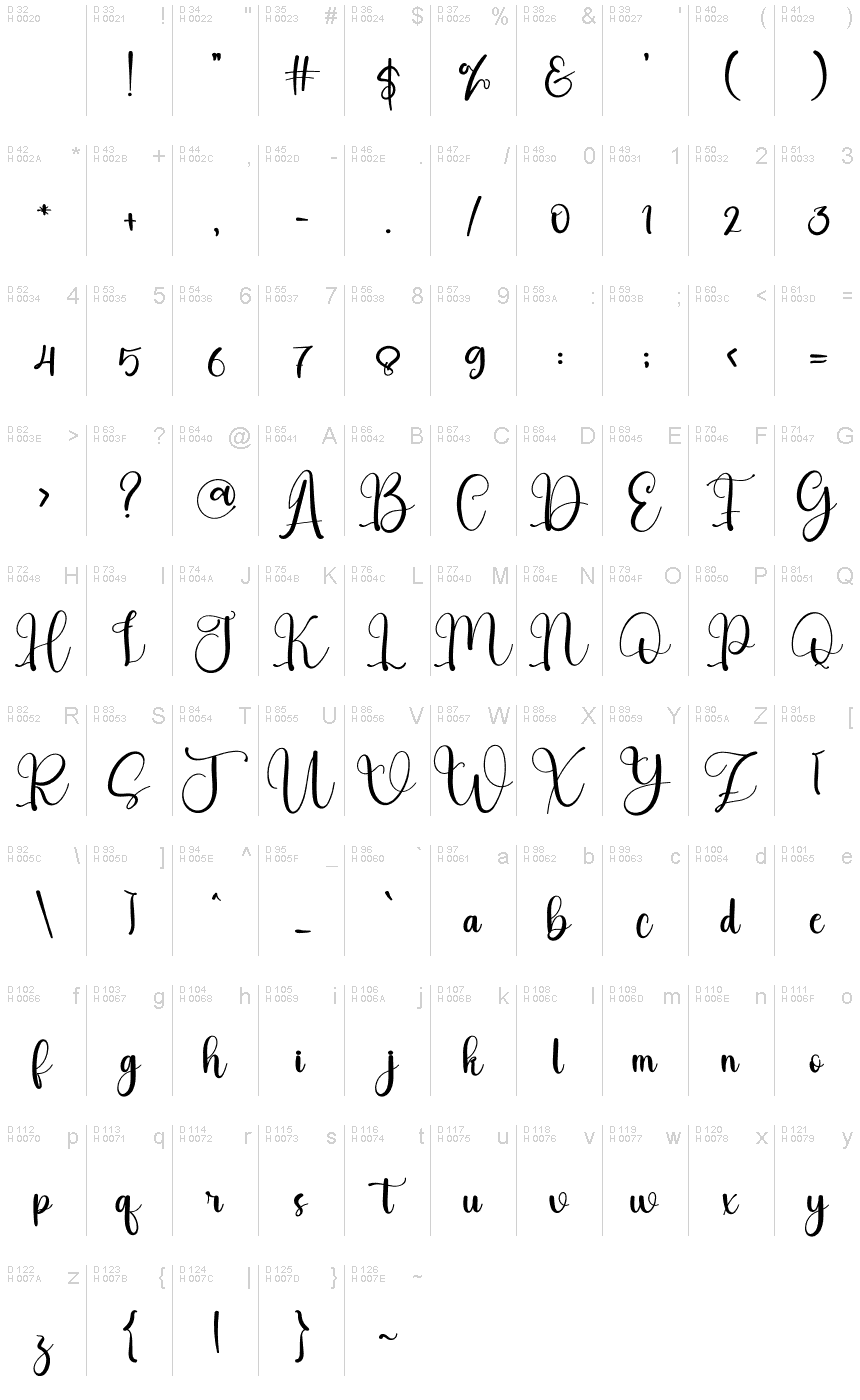
Outstanding
Outstanding, a creation by Inermedia Studio, is a delightful calligraphy font that exudes elegance and grace. With its semi-light weight, this font lends itself perfectly to projects requiring a touch of sophistication and charm.
It gracefully complements wedding invitations, love letters, and romantic greeting cards, bringing a sense of enchantment to each word. Its flowing curves and graceful strokes make it equally suitable for branding luxurious fashion labels or creating stunning logos for high-end beauty products.
Outstanding is the epitome of refined beauty in typographic form.